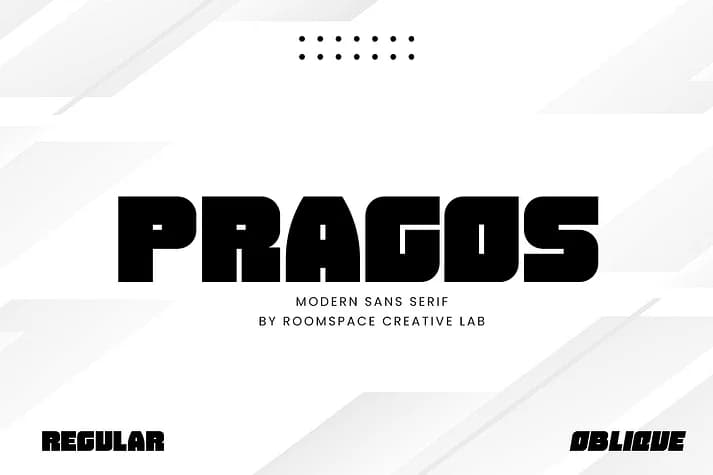
Pragos radiates quiet confidence without demanding attention. Designed by roomspace, this geometric sans-serif mixes structured rectangular forms with subtle curves that soften every edge.
Where does it work best? In tech startup logos and brand identities that need credibility without pretense. In upscale beauty and fashion branding where clarity and refinement matter equally. On premium product packaging where typography needs to carry as much visual weight as the design concept itself. Magazine headlines and editorial layouts also benefit from Pragos' confident stance. The typeface holds up beautifully across all scales and contexts, from business card lettering to billboard applications and everything in between. Legibility remains sharp whether you're setting a bold headline or fitting body copy into confined spaces. You get both OTF and TTF versions with Regular and Oblique weights, complete multilingual character support, and numerals that sit comfortably alongside text. Installation on Windows, Mac, iOS, and iPad is straightforward and hassle-free.
Pair Pragos headlines with something neutral and geometric, like Source Sans Pro, for body text and supporting elements. This pairing creates clear visual hierarchy without any tension, letting your entire type system read as intentional and cohesive throughout. Grab it on Creative Fabrica and start building something confident.
Pragos Font is a display font that shines as a display or heading face. Pair it with a clean sans-serif or serif font for body text โ the contrast creates a clear hierarchy while the two styles stay balanced and easy to read.
Pragos Font
by roomspace